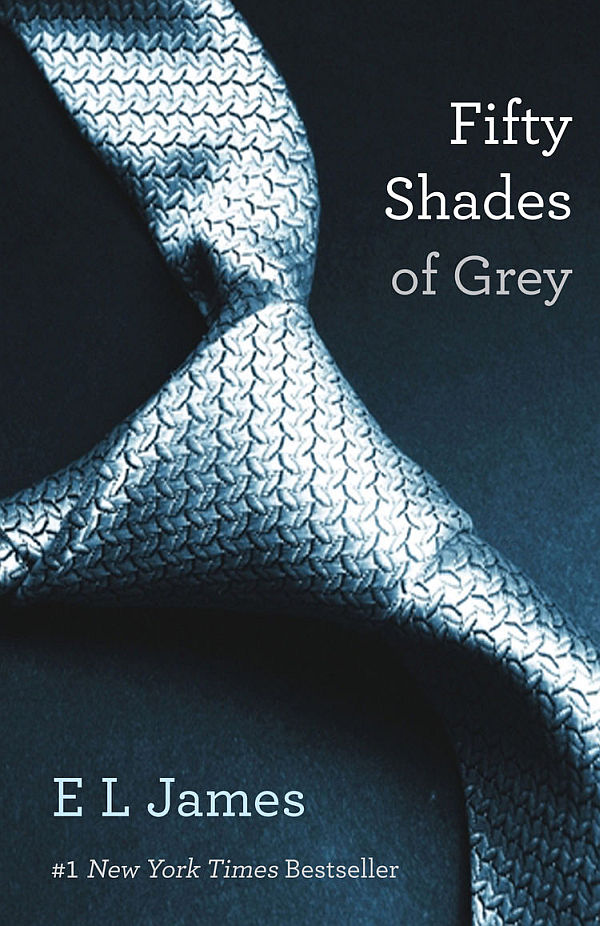
Fifty Shades of Grey Font
BookFifty Shades of Grey is a romantic novel by British author E. L. James. It was first published in 2011 and has since become a best-selling book series, with over 150 million copies sold worldwide. The novel follows the relationship between a young woman named Anastasia Steele and a wealthy businessman named Christian Grey.
Archer Book, which was designed by Tobias Frere-Jones and Jonathan Hoefler in 2001, is used for the book title on the cover. Hoefler & Frere-Jones licensed it for commercial use after originally using it in Martha Stewart Living magazine. There was a film adaptation of the book, which premiered at the 65th Berlin International Film Festival on February 11, 2015. Didot is used as the font in the film's official poster title.